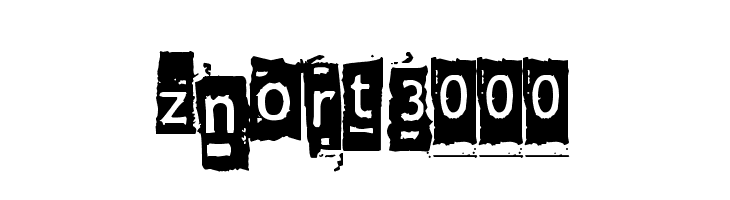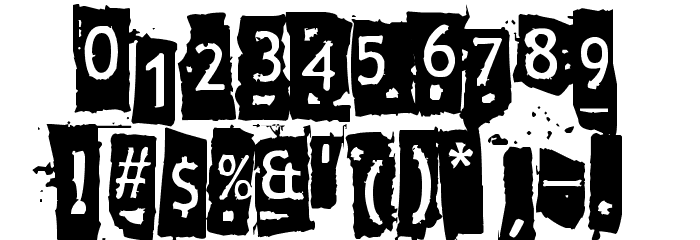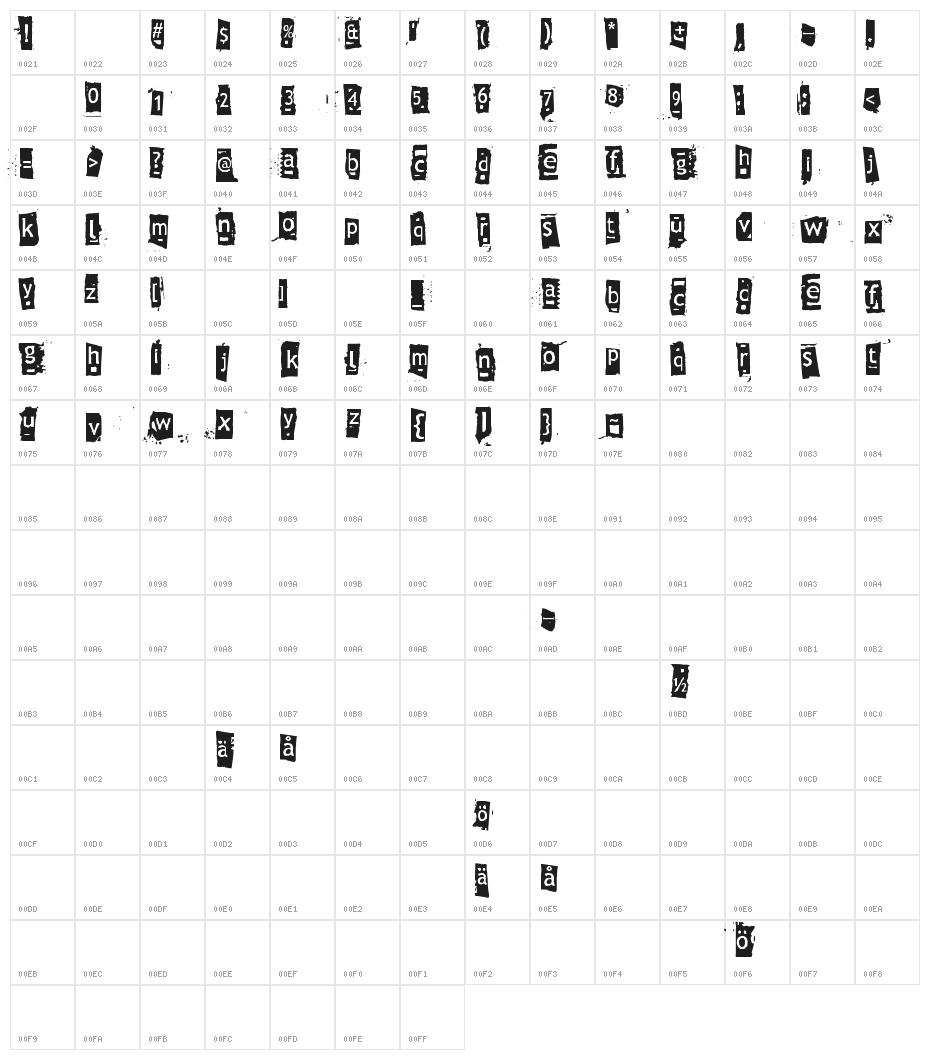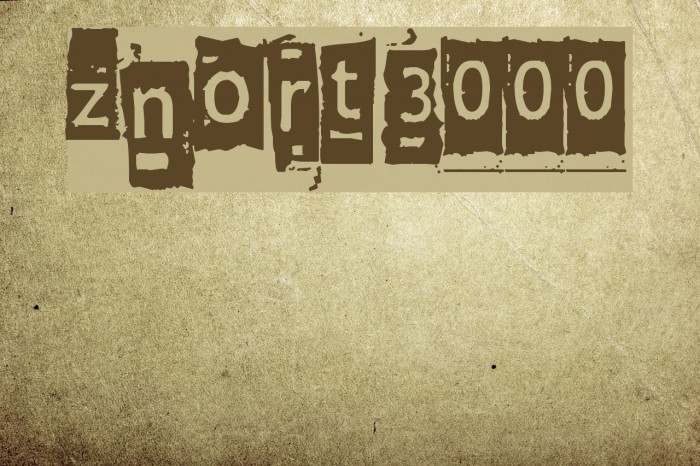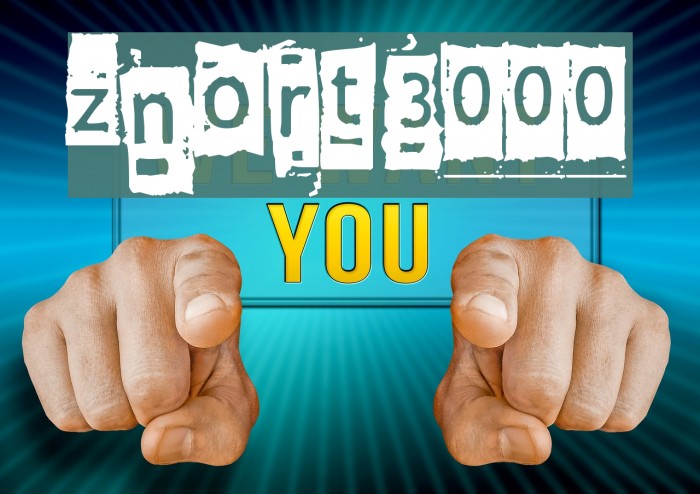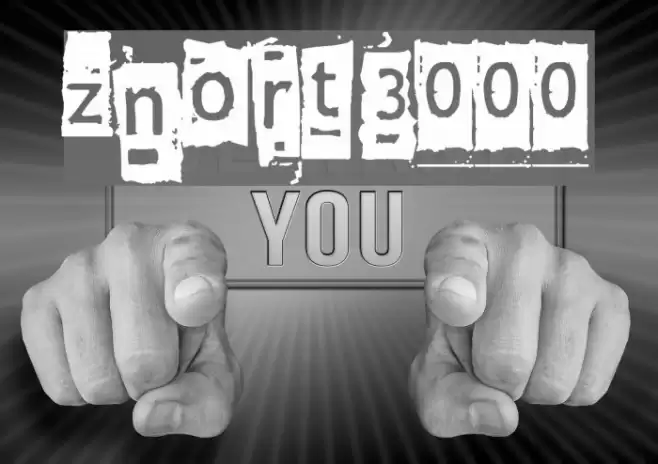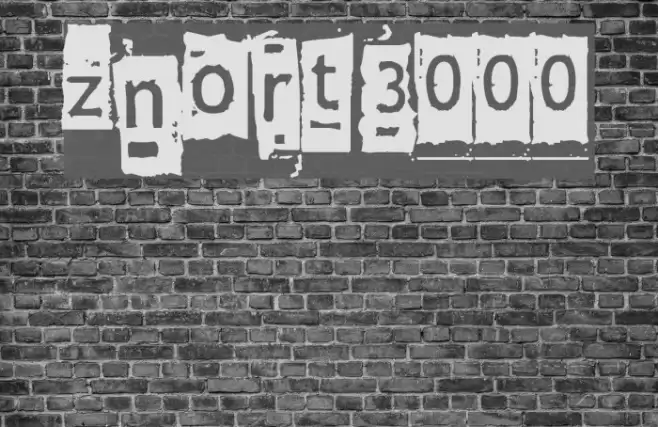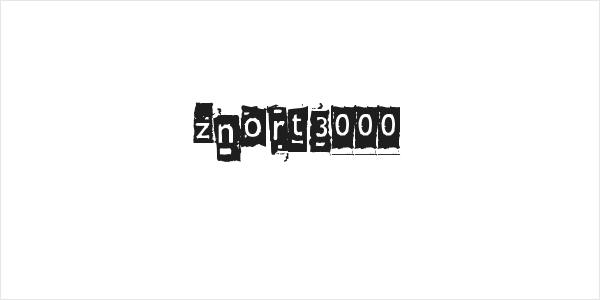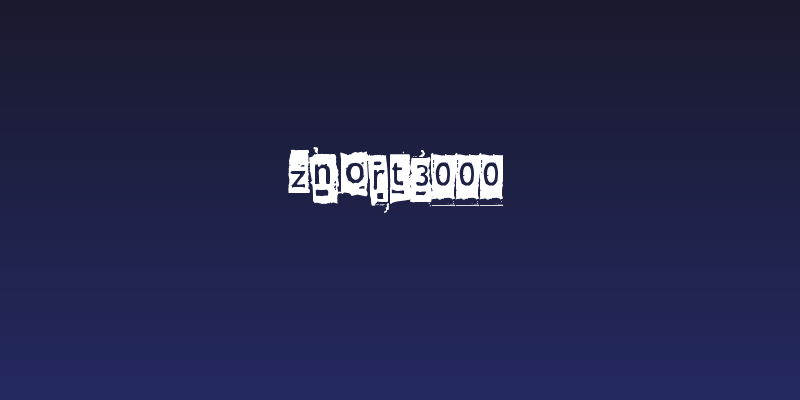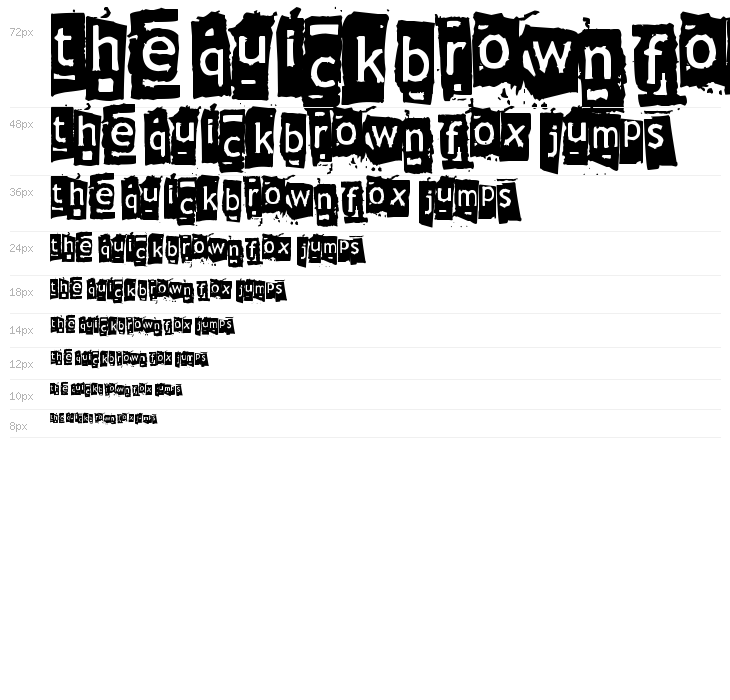
Znort3000 Font
Znort3000 Description
This font features a highly distressed and grungy style, reminiscent of letters cut from newspapers or magazines. Each character is set against a rough, irregular black background, giving it a chaotic and edgy appearance. The letters are white and appear to be hand-drawn, with varying thickness and uneven edges, adding to the overall rugged aesthetic. This font captures a sense of urgency and rebellion, making it ideal for projects that require a bold, unconventional look. The characters are distinct and legible despite their distressed nature, ensuring readability while maintaining a unique visual impact.
| Overall Style | Grunge, Edgy, Distressed |
| Use Case | Headlines, Posters, Album Covers |
| Proposed Projects | Ideal for punk rock album covers, rebellious posters, edgy branding, and creative zines. |